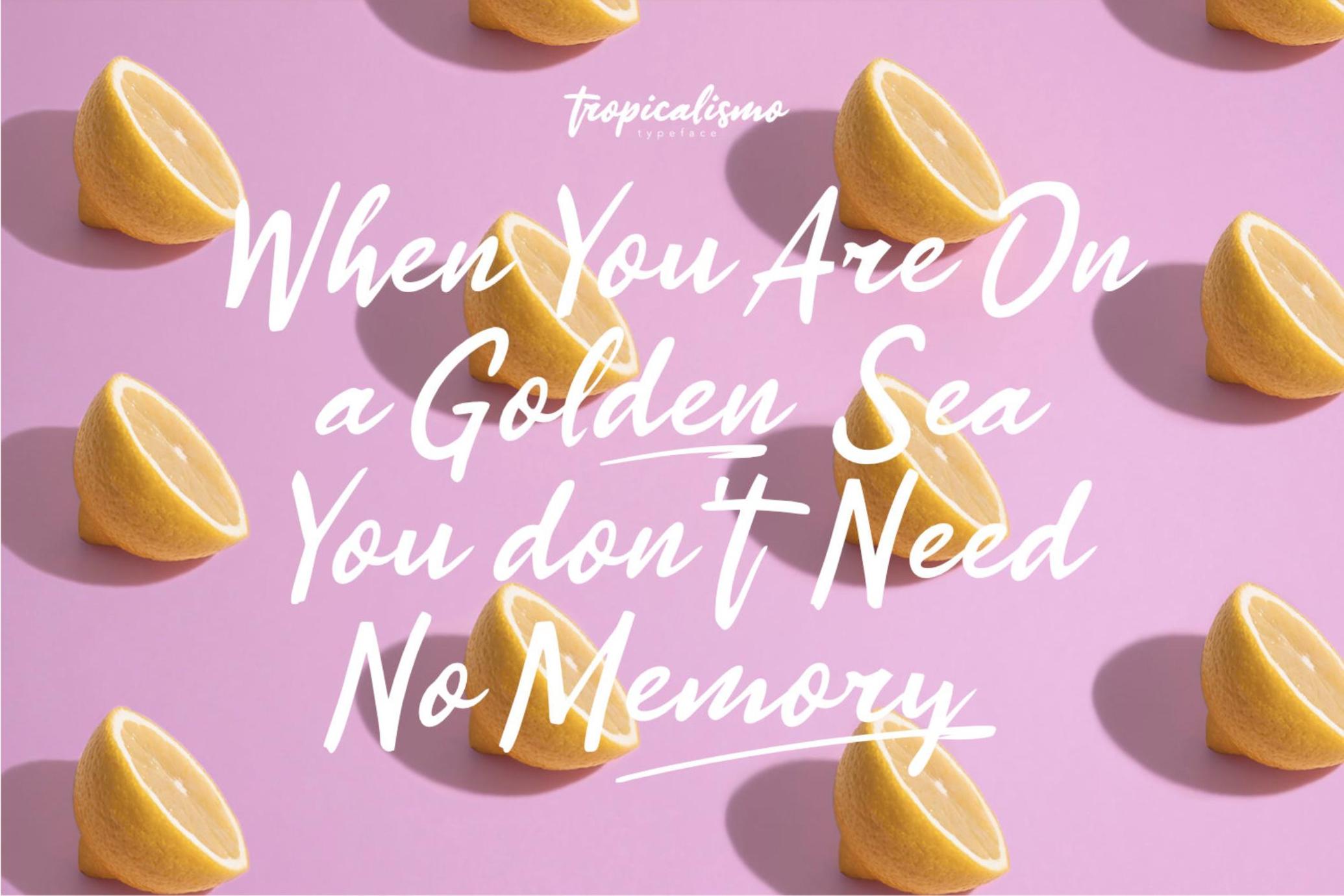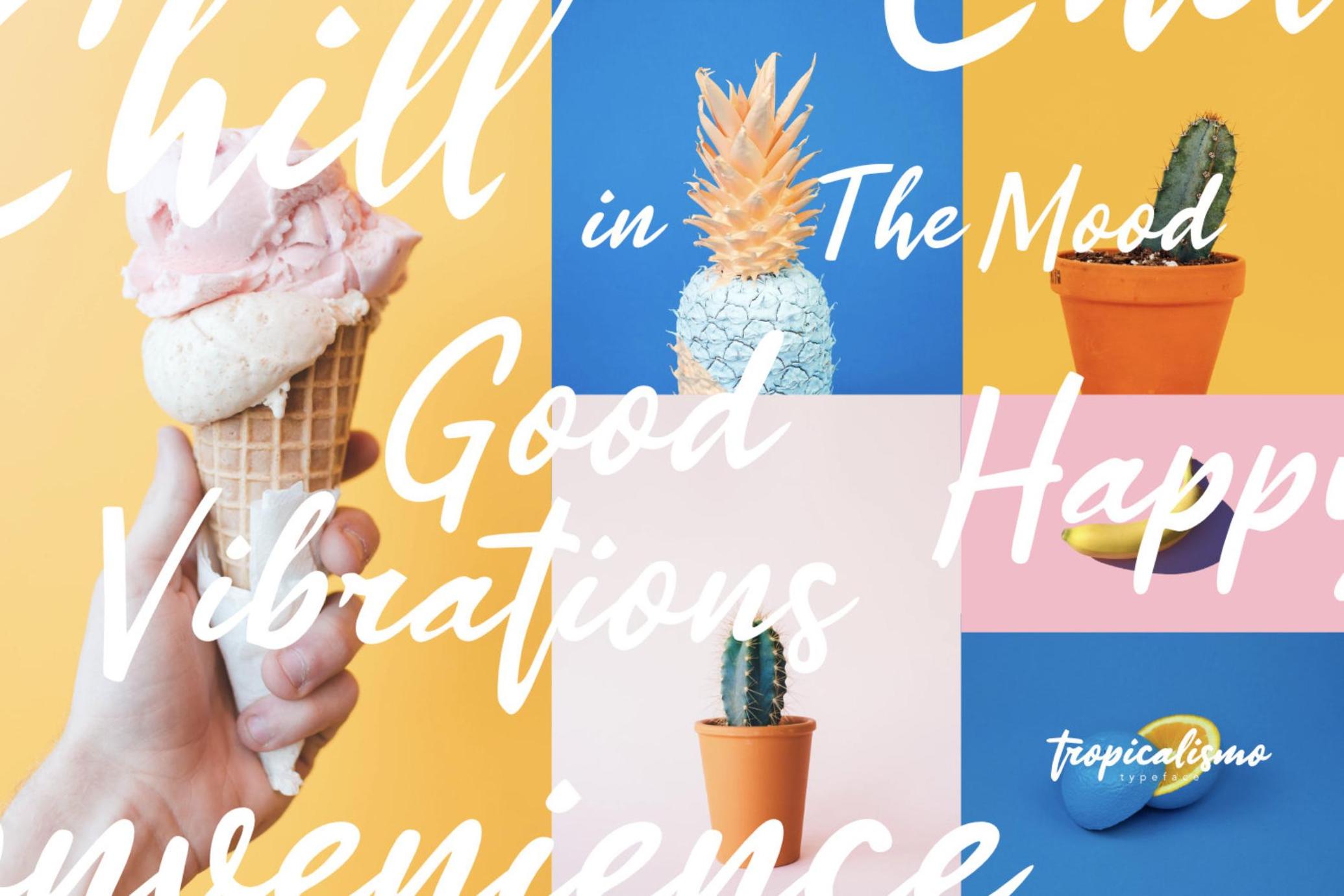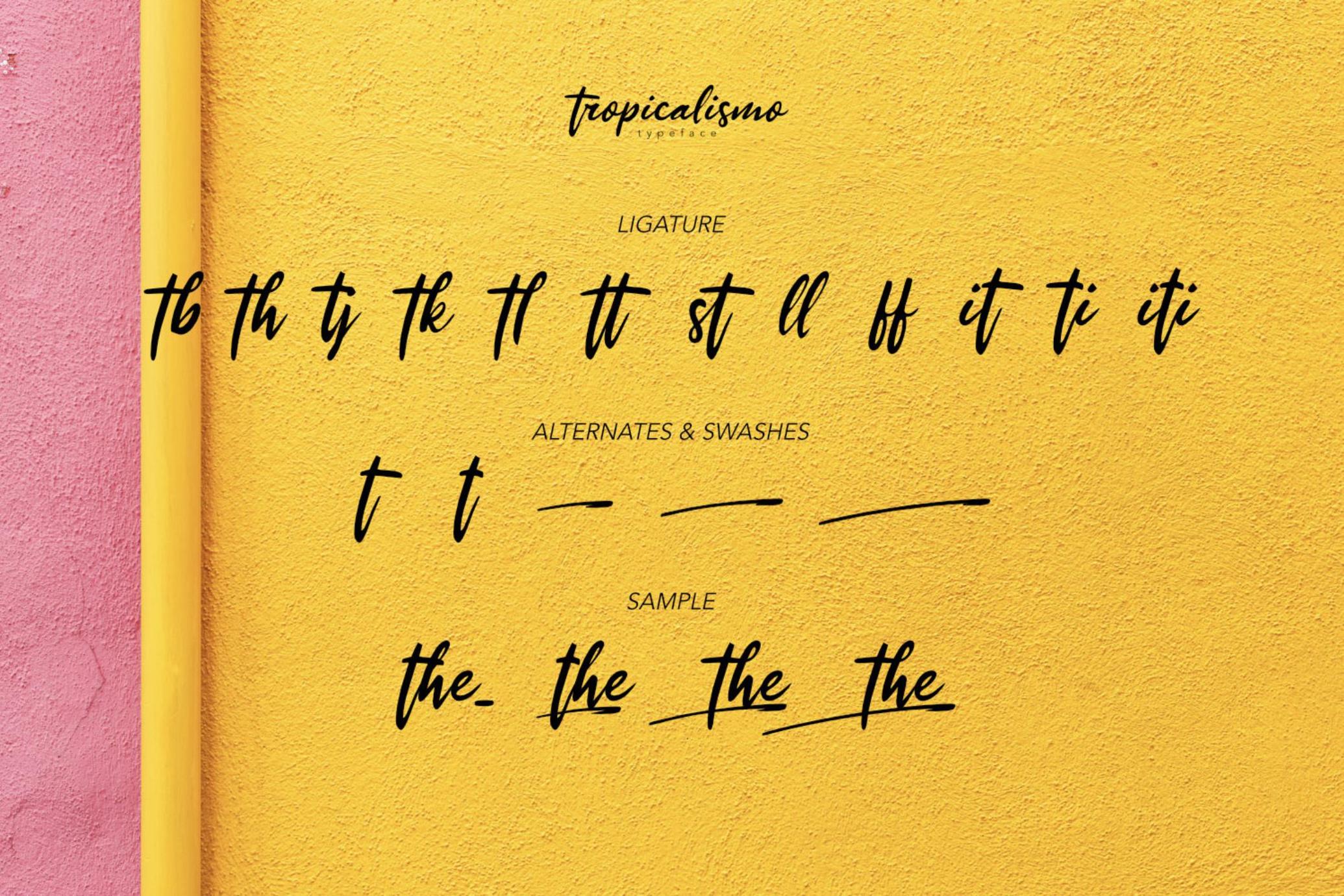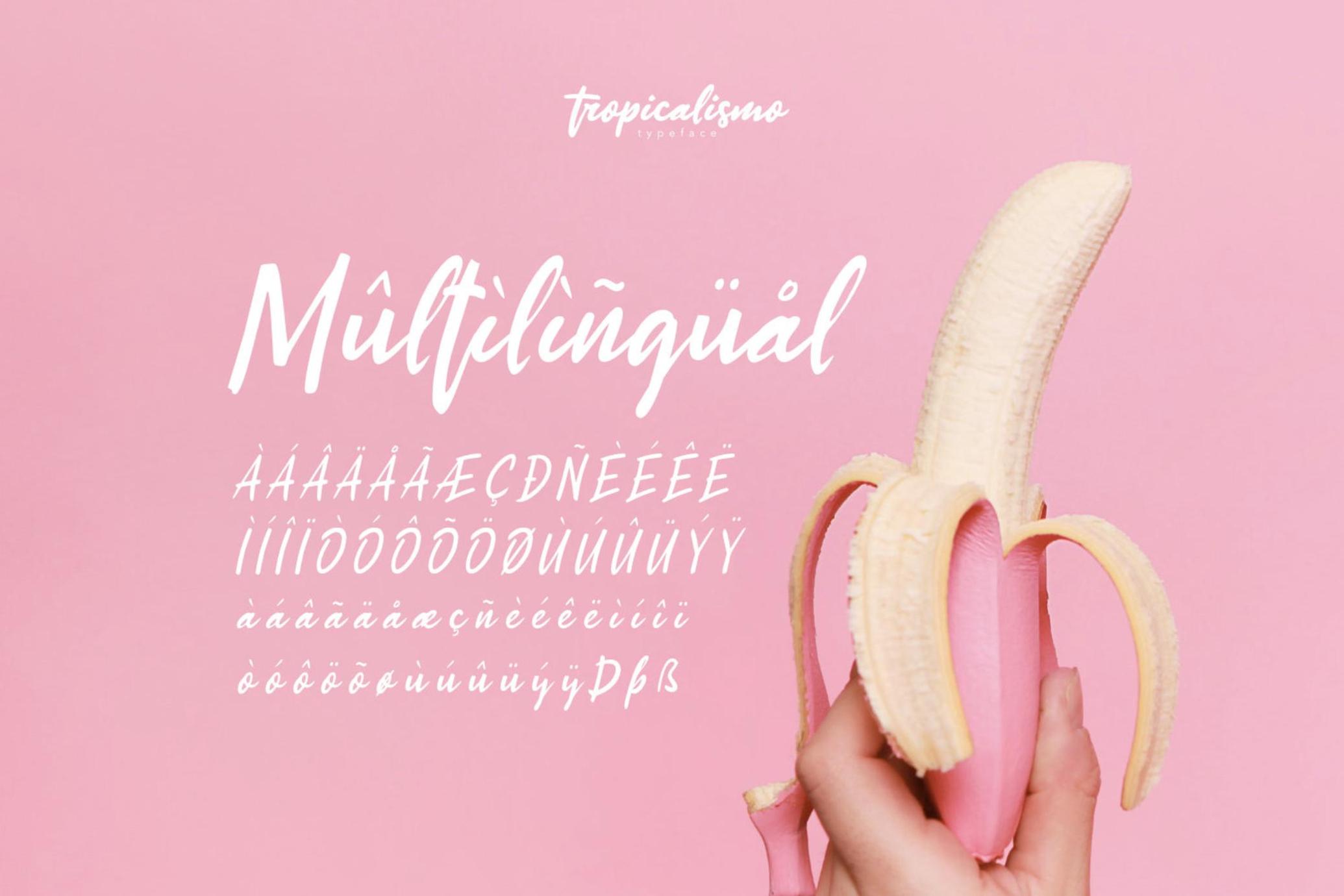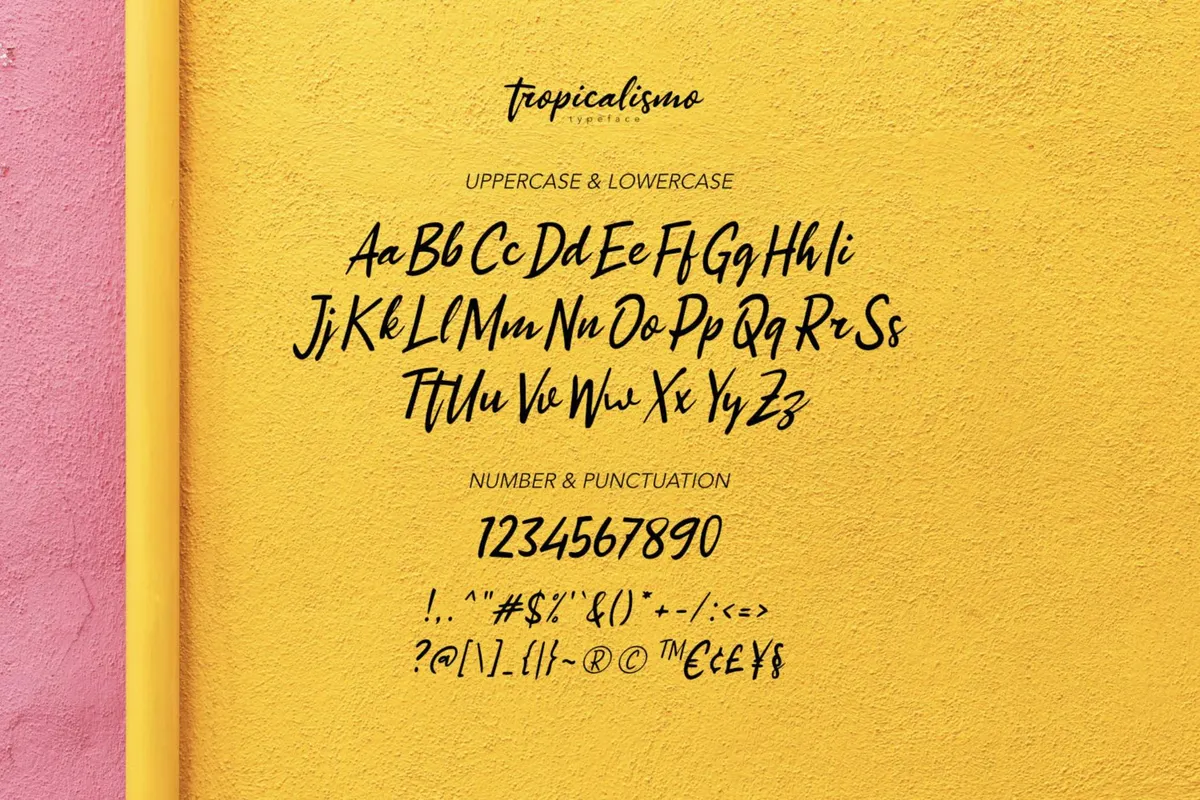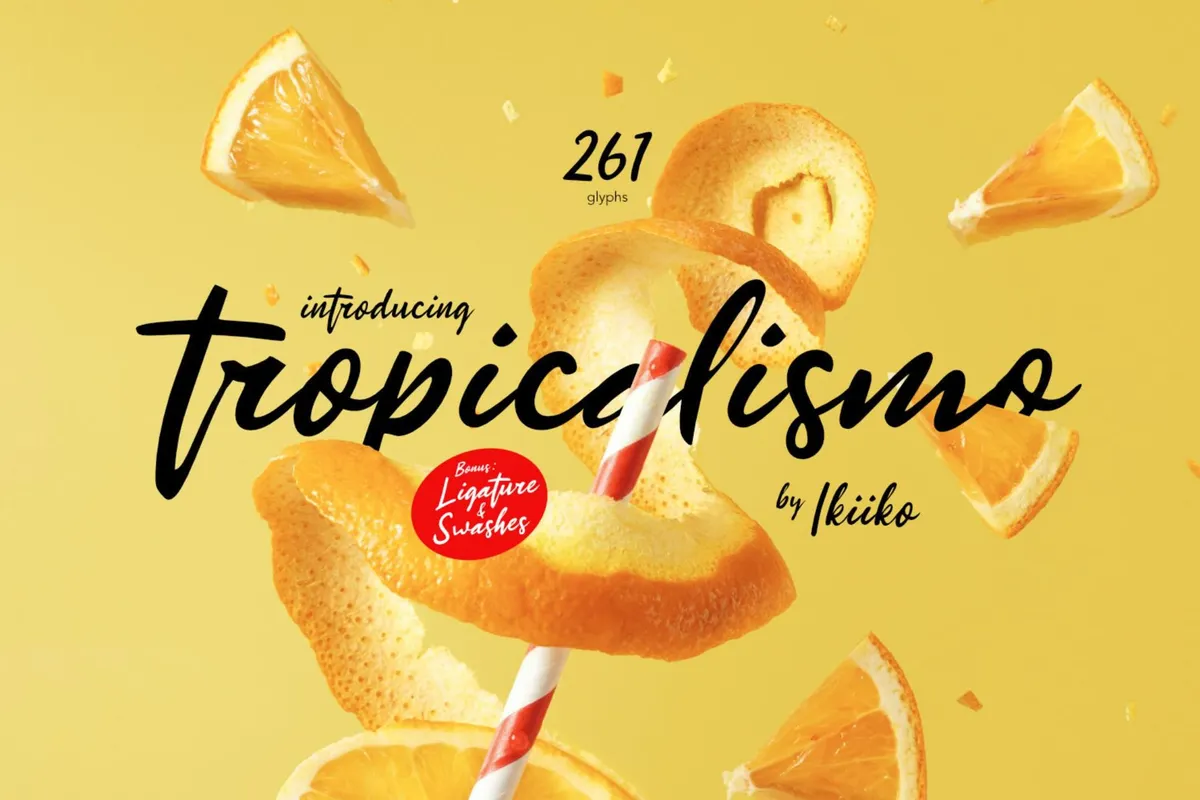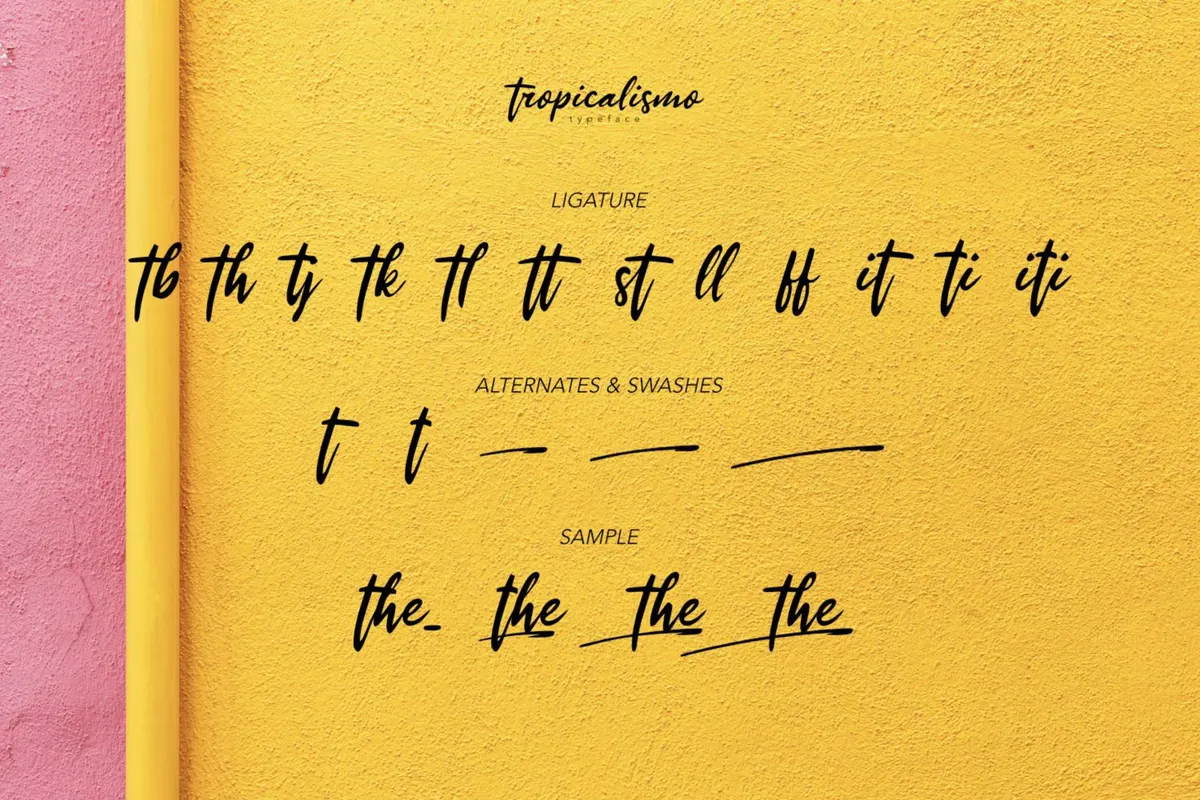
Tropicalismo - Tropical Font
A festive handwriting typeface with holiday vibes, fun and joy. You will feel the freshness and pleasure in expression. This typeface is perfect for an holiday season stuff like poster, flyer, or email blast. And also good for beauty product, packaging product, quotes, or simply as a stylish text overlay to any background image.
• Number & Punctuation
• Ligatures & Swashes